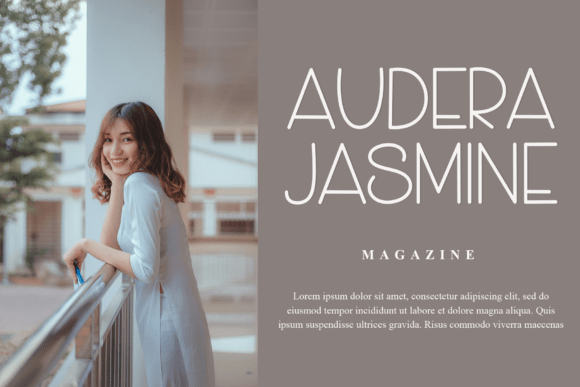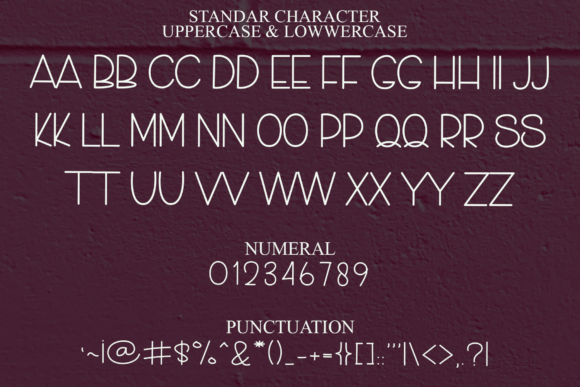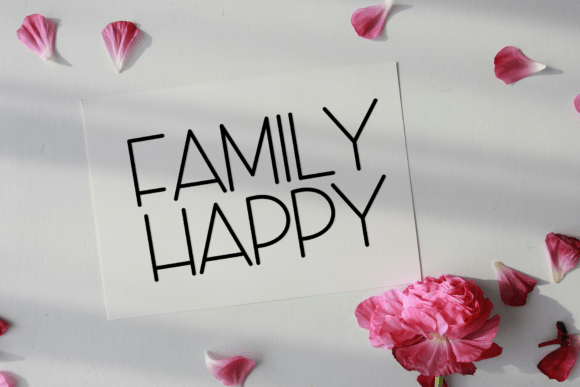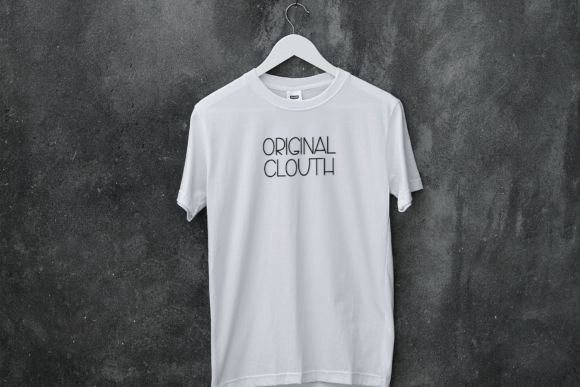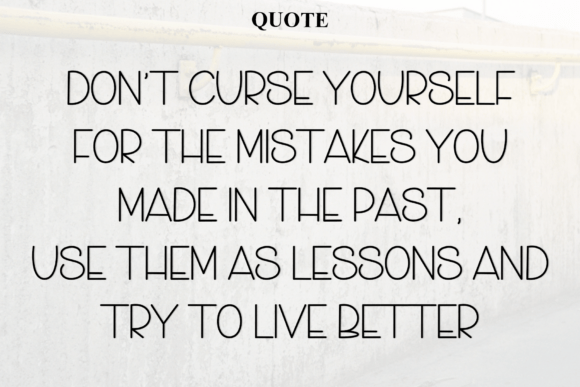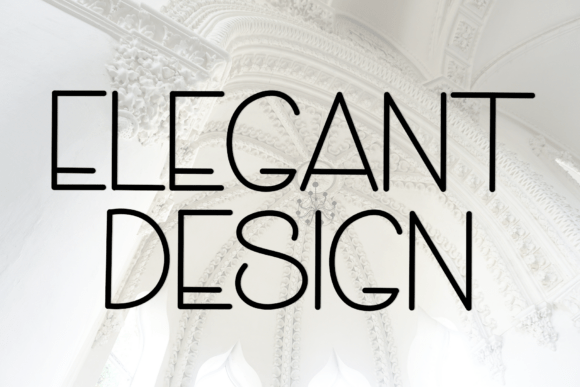
Elegant Font: The Perfect Choice for Creative Designs
In the world of typography, fonts play a crucial role in conveying the tone and personality of a design. When it comes to creating a warm, friendly, and approachable feel, the Elegant font stands out as an excellent choice. This casual and creative font is designed to add a touch of charm and uniqueness to any design, making it perfect for personal projects, invitations, social media graphics, and more.
The Characteristics of Elegant Font
The Elegant font boasts round, playful strokes that create a relaxed and casual feel. Its hand-drawn aesthetic gives it a charming and unique personality, making it an excellent choice for designers and crafters looking to add a personal touch to their work. The font’s elegant and refined appearance is balanced by its playful and creative vibe, making it versatile and suitable for a wide range of design applications.
Key Features of Elegant Font
- Hand-Drawn Aesthetic: The font’s charming, hand-drawn appearance adds a fun and unique touch to any design, making it perfect for creative projects.
- Playful Strokes: The round, playful strokes of the Elegant font create a relaxed and approachable feel, ideal for personal projects, invitations, and social media graphics.
Use Cases for Elegant Font
The Elegant font is an excellent choice for a variety of design applications, including:
- Personal Projects: Add a touch of warmth and friendliness to your personal projects, such as photo albums, scrapbooking, and handmade crafts.
- Invitations: Create beautiful and elegant invitations for special occasions, such as weddings, birthday parties, and baby showers.
- Social Media Graphics: Use the Elegant font to create engaging and eye-catching social media graphics, such as quotes, posters, and flyers.
- Branding and Packaging: The Elegant font can also be used for branding and packaging design, adding a touch of sophistication and elegance to your products.
Tips for Using Elegant Font
To get the most out of the Elegant font, here are some tips to keep in mind:
- Pair with Other Fonts: Experiment with pairing the Elegant font with other fonts to create a unique and visually appealing combination.
- Use in Large Sizes: The Elegant font looks stunning in large sizes, making it perfect for headings, titles, and signage.
- Add Decorative Elements: Consider adding decorative elements, such as illustrations or graphics, to enhance the overall design and make it more engaging.
In conclusion, the Elegant font is an excellent choice for designers and crafters looking to add a touch of warmth, friendliness, and elegance to their designs. Its playful strokes, hand-drawn aesthetic, and PUA encoded glyphs make it a versatile and practical choice for a wide range of design applications. Whether you’re working on personal projects, invitations, social media graphics, or branding and packaging design, the Elegant font is sure to impress.
Get Creative with Elegant Font